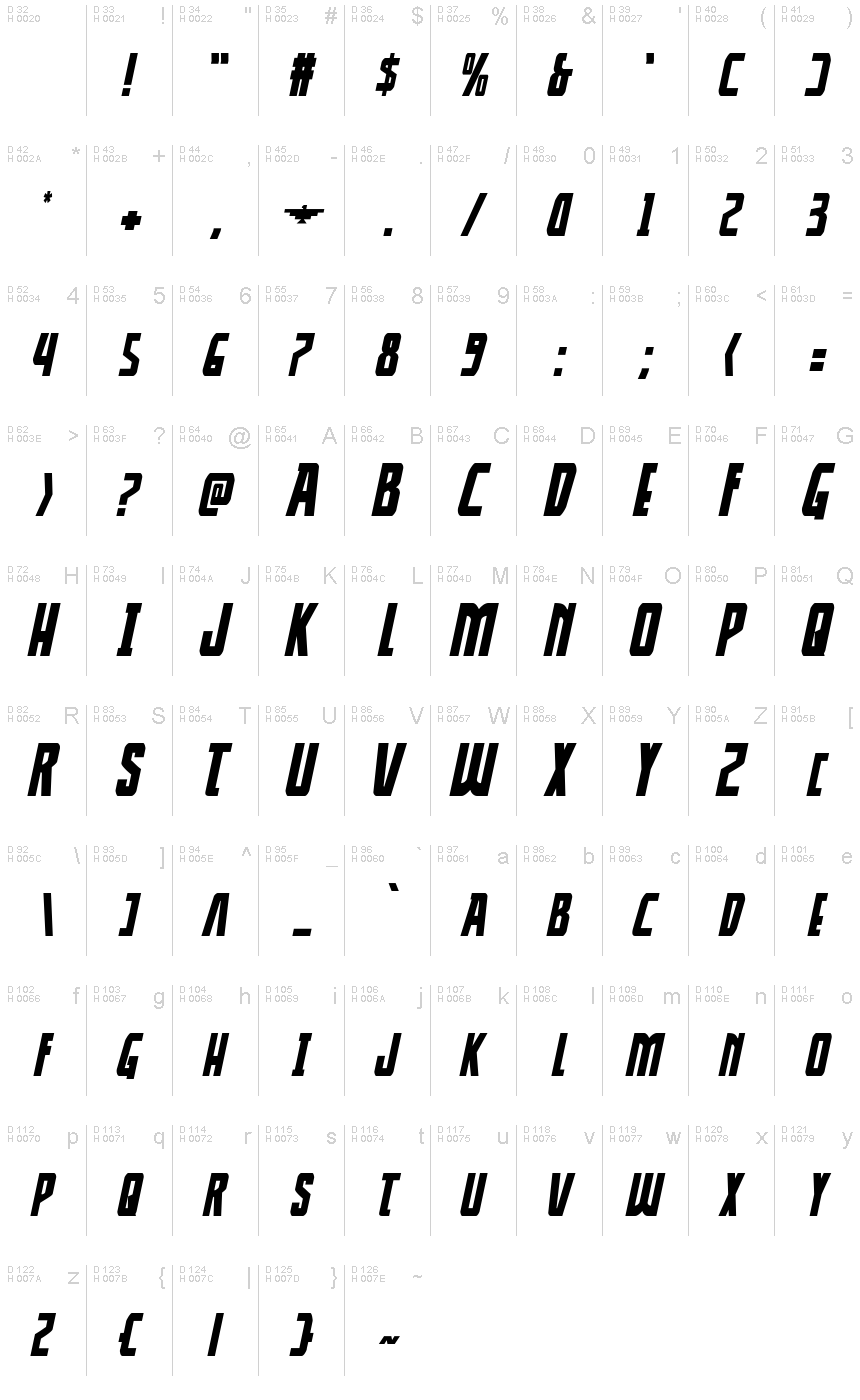
Thunder-Hawk Semi-Italic commands attention with its bold, condensed letters and dynamic semi-italic slant. Perfectly crafted by Iconian Fonts, this display font embodies strength and movement, making it an excellent choice for impactful headlines and striking logos. The unique characteristics of Thunder-Hawk Semi-Italic lend themselves to design applications that require a powerful visual presence, aligning seamlessly with themes of speed, power, and modernity.
Ideal for branding in sports, technology sectors or action-themed designs, Thunder-Hawk Semi-Italic ensures your message is not just seen but felt with intensity.
Thunder-Hawk Semi-Italic